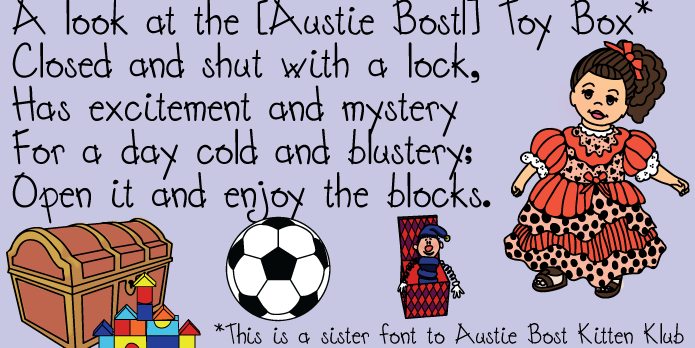
Austie Bost Toy Chest is a hand drawn and kids font published by Austie Bost Fonts.
Austie Bost Toy Chest is a childlike, handdrawn font that is like Kitten Klub, only without the paw prints.